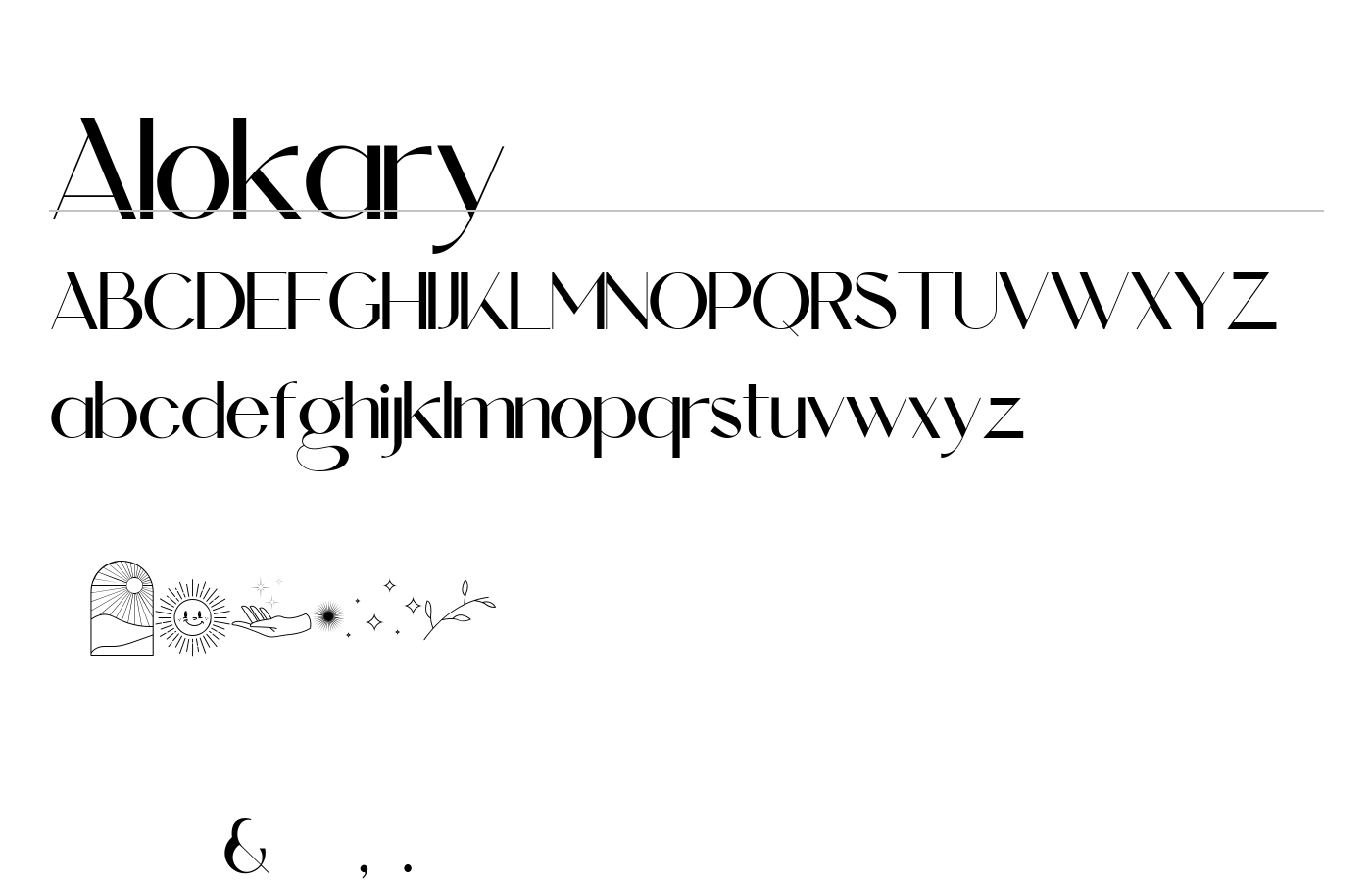
Alokary is a stylish serif typeface with a modern, elegant flair characterized by its high contrast between thick and thin strokes and unique geometric shapes in letters like A, K, and R. Its slender and tall letterforms, combined with fine, pointed serifs, give it a luxurious and refined personality, making it perfect for upscale branding, editorial headlines, and sophisticated packaging. This font shines in contexts where a touch of elegance and contemporary artistry is desired, standing out with its distinctive, graceful design.
Alokary Font
About Alokary Font